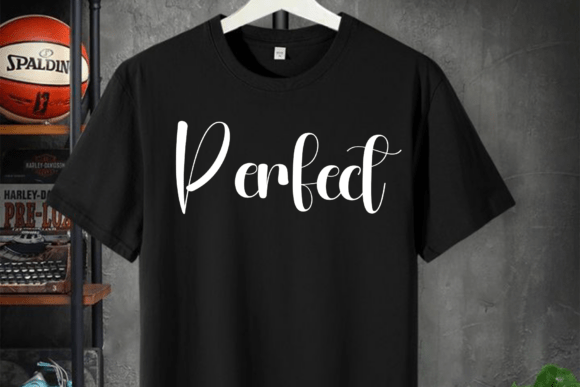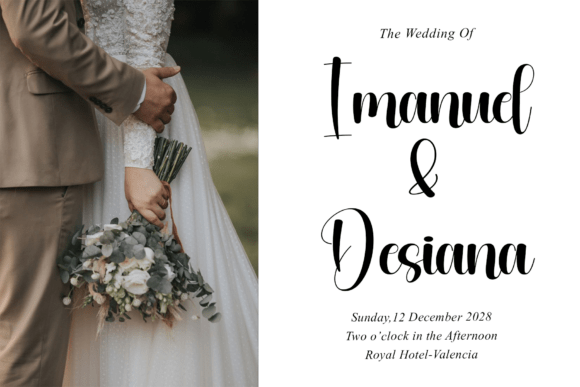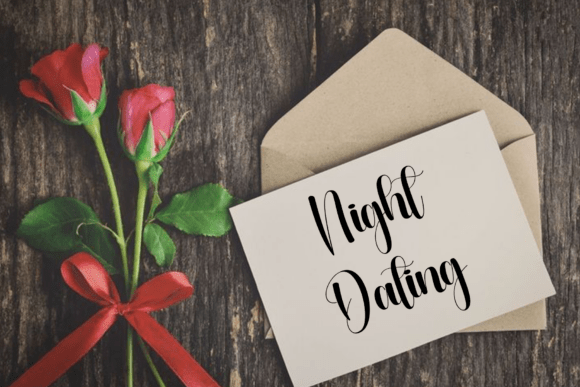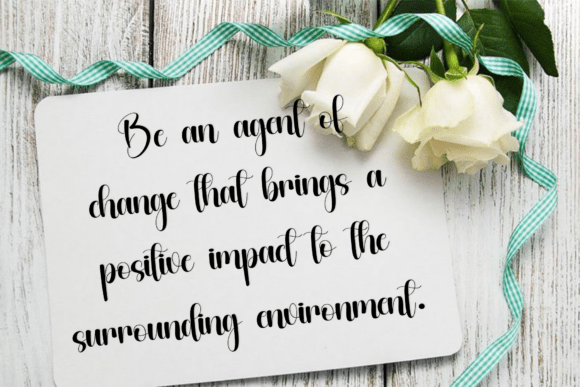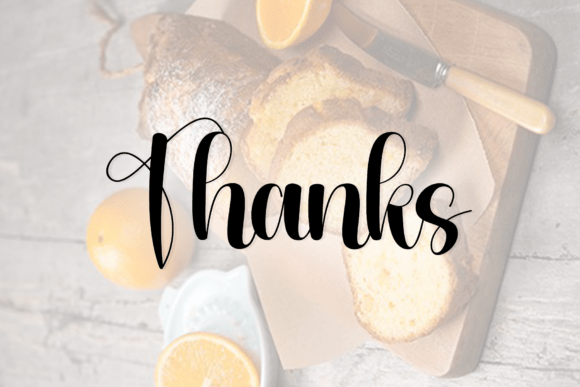
Discovering the Sweetest Script: Buttercake Font
Have you ever sat at your desk, staring at a blank page, waiting for the perfect words to flow? That’s exactly what happened to me when I first laid eyes on the elegant Buttercake Font. Its fluid, handwritten script seemed to dance across the screen, beckoning me to create something special.
This beautiful script font is a perfect choice for those seeking to add a touch of sophistication to their designs. From luxury wedding stationery to high-end editorial signatures, the Buttercake Font is sure to impress. Its versatility makes it a valuable addition to any designer’s toolkit, allowing them to create stunning, one-of-a-kind pieces that exude elegance and refinement.
Whether you’re a seasoned pro or just starting out, the Buttercake Font is sure to inspire you to new heights of creativity and design excellence.
Buttercake Font Key Features
- Font Family: A unique, cursive script font designed to evoke a sense of nostalgia and elegance.
- Unique Characteristics: Features intricate flourishes, swashes, and ligatures that add a touch of sophistication and whimsy to any design.
Buttercake Font Review
As a designer, I was excited to dive into the world of Buttercake Font, but unfortunately, it didn’t quite live up to my expectations.
- The font is playful and fun, making it perfect for creative projects or children’s content.
- The script style is well-executed, and the ligatures are smooth and seamless.
- The font is highly customizable, with a wide range of options for adjusting the spacing, color, and more.
- The font is not suitable for formal or professional projects, as it may come across as too whimsical.
- The font is not optimized for small text sizes, which can lead to readability issues.
- The font lacks a clear, distinct character set, which may make it difficult to read in certain contexts.
Overall, I’d give Buttercake Font 3 out of 5 stars. While it’s a fun and playful font, its limitations make it less versatile than I’d like. It’s perfect for specific projects, but may not be the best choice for more general use.
- Use Buttercake Font for titles, headings, and emphasis to add visual interest to your design.
- Combine Buttercake Font with other fonts to create a unique and eye-catching design.
- Experiment with different font sizes and styles to achieve a cohesive look.
Common use cases for Buttercake Font include:
Alternatives to Buttercake Font for Designers
Great Vibes Font is a modern, cursive script font ideal for creating a friendly and approachable atmosphere in designs. It’s perfect for use in invitations, greeting cards, and other creative projects. Great Vibes Font is more elegant and refined compared to Buttercake Font, making it suitable for more formal designs.
Alex Brush Font is a beautiful, hand-painted font that adds a touch of whimsy and personality to designs. It’s ideal for use in logos, branding, and advertising materials. Compared to Buttercake Font, Alex Brush Font is more dramatic and eye-catching, making it perfect for grabbing attention in busy environments.
Pacifico Font is a clean, elegant font with a relaxed, beachy vibe. It’s perfect for use in travel-related designs, outdoor apparel, and wellness brands. Pacifico Font is more minimalist and easy-to-read compared to Buttercake Font, making it suitable for use in body text and headlines.
Dancing Script Font is a lively, cursive script font that adds a touch of playfulness to designs. It’s ideal for use in creative projects, such as wedding invitations, party decorations, and social media graphics. Compared to Buttercake Font, Dancing Script Font is more energetic and dynamic, making it perfect for use in fun and lively designs.
Q: Is Buttercake Font compatible with variable font technologies?
Unfortunately, the Buttercake Font is not a variable font, and it does not support variable font technologies such as OpenType Variable Fonts (OTVF) or WOFF2. However, it is designed to work well with font substitution and font fallback mechanisms, which can help to ensure that the font renders correctly even in complex typography scenarios.